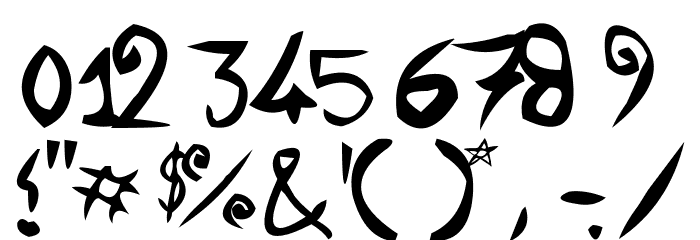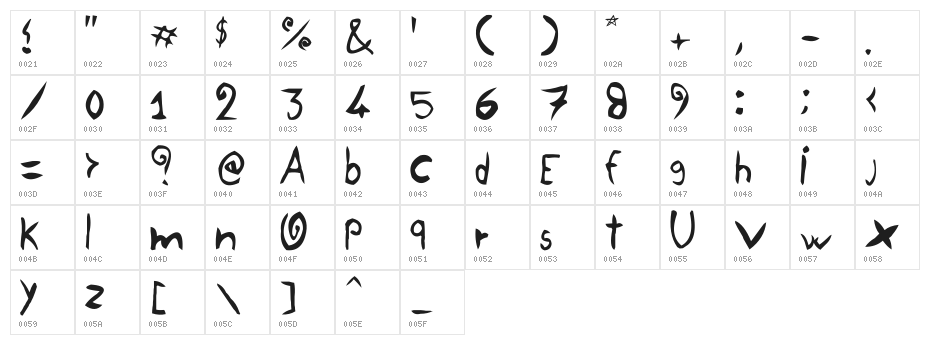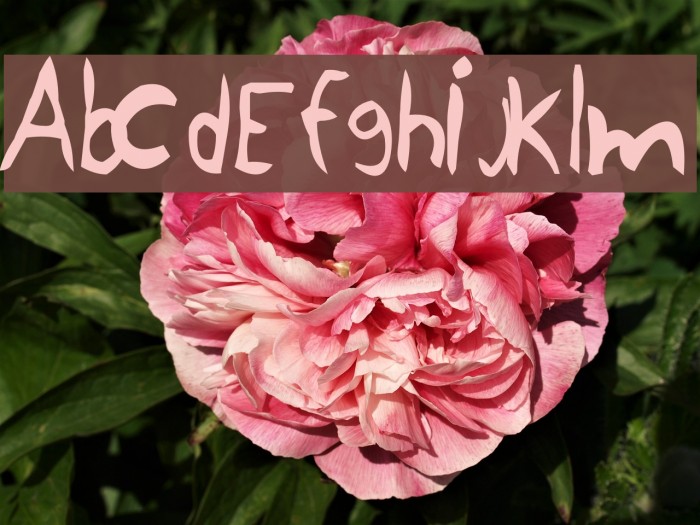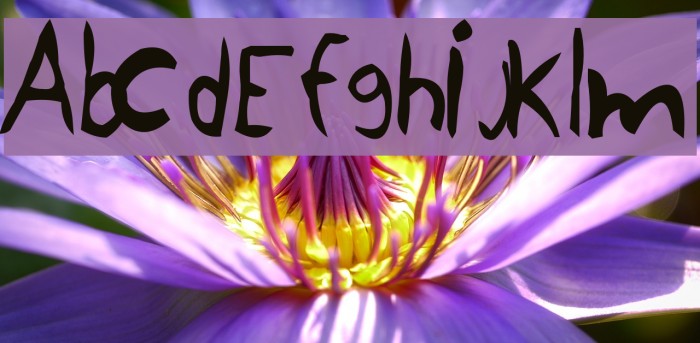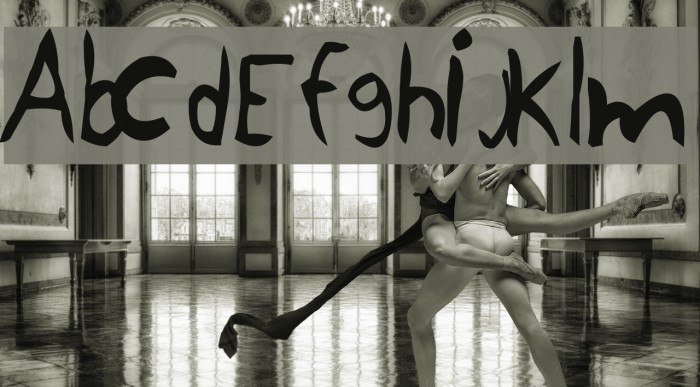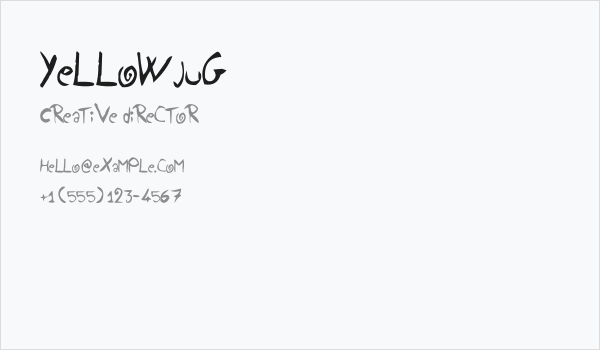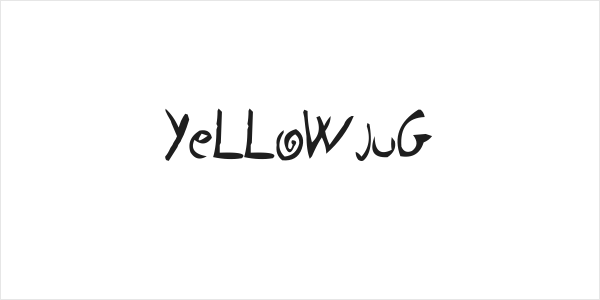
YellowJug Font
YellowJug Description
This font exhibits a highly expressive and artistic style, characterized by its bold, irregular strokes and dynamic forms. The letters have a hand-drawn, almost whimsical appearance, with varying thicknesses that add to its unique charm. The uppercase and lowercase letters maintain a consistent style, with exaggerated curves and angles that give the font a lively and energetic feel. Numbers and special characters follow the same artistic theme, making the font suitable for creative and unconventional projects. The overall look is playful yet bold, making it stand out in any design.
| Proposed Projects | Ideal for creative projects such as posters, album covers, and artistic branding. |